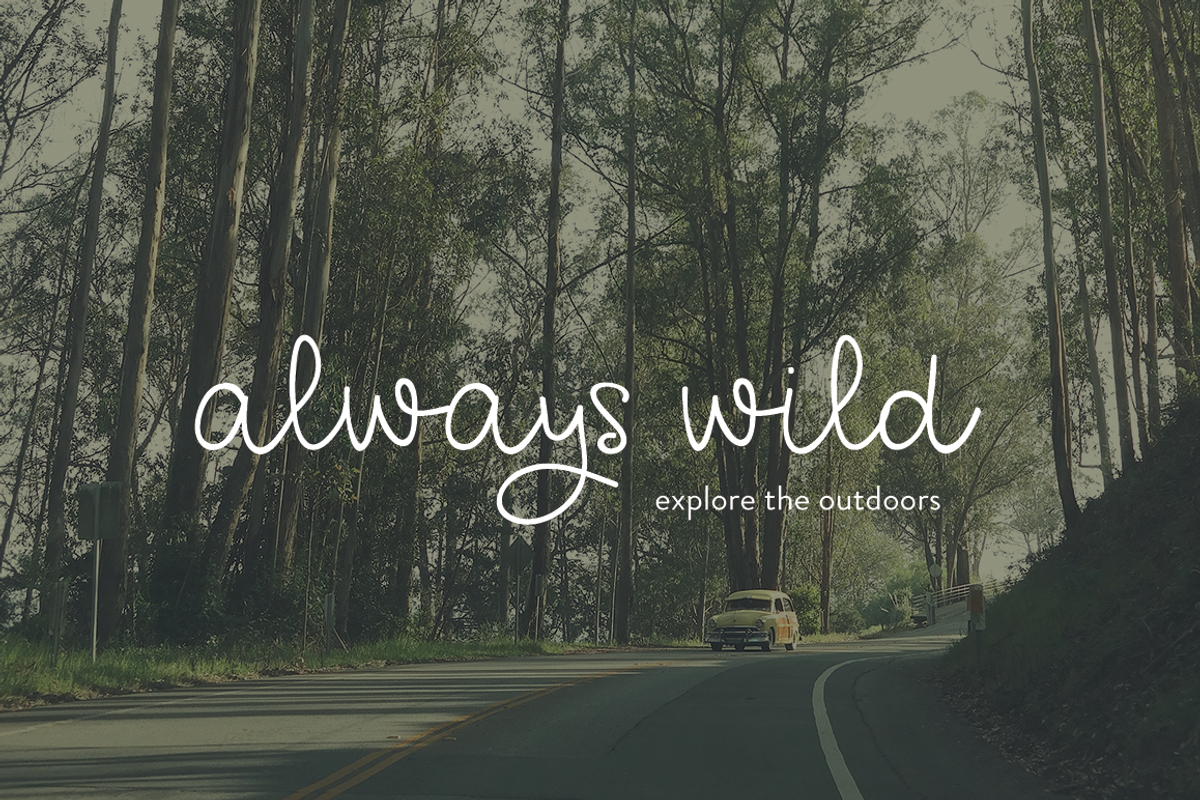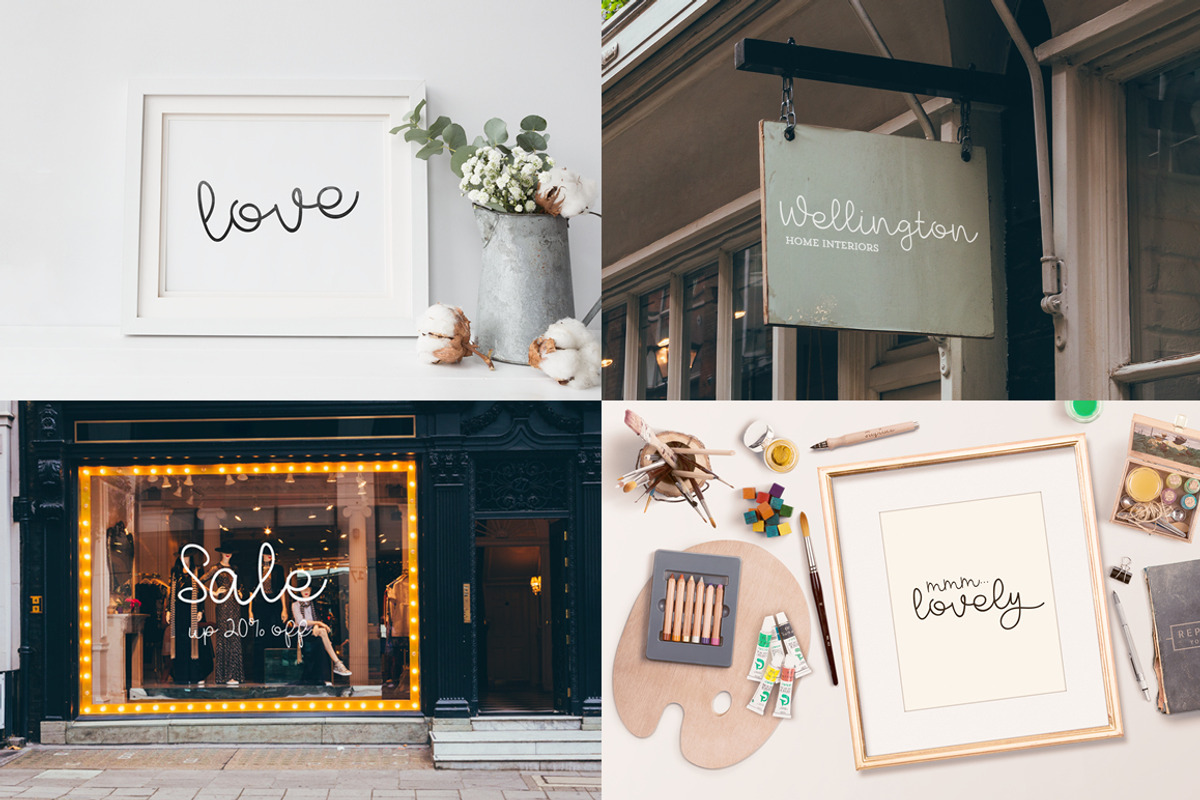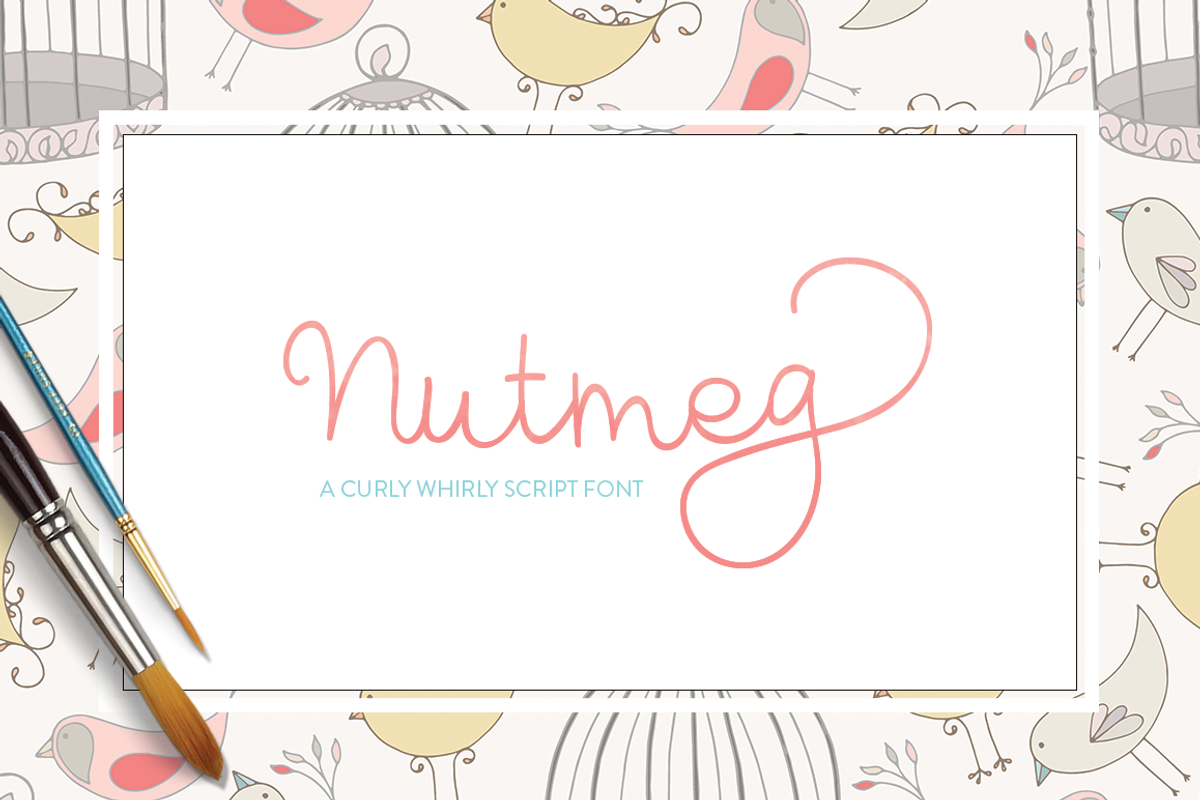
Nutmeg - Script Font
Nutmeg - Script Font by Lollipop Hand Drawn is a font selected for branding, posters, packaging, typography.
Why Nutmeg - Script Font is worth a look
Nutmeg - Script Font by Lollipop Hand Drawn fits naturally into Branding, posters, packaging, typography.